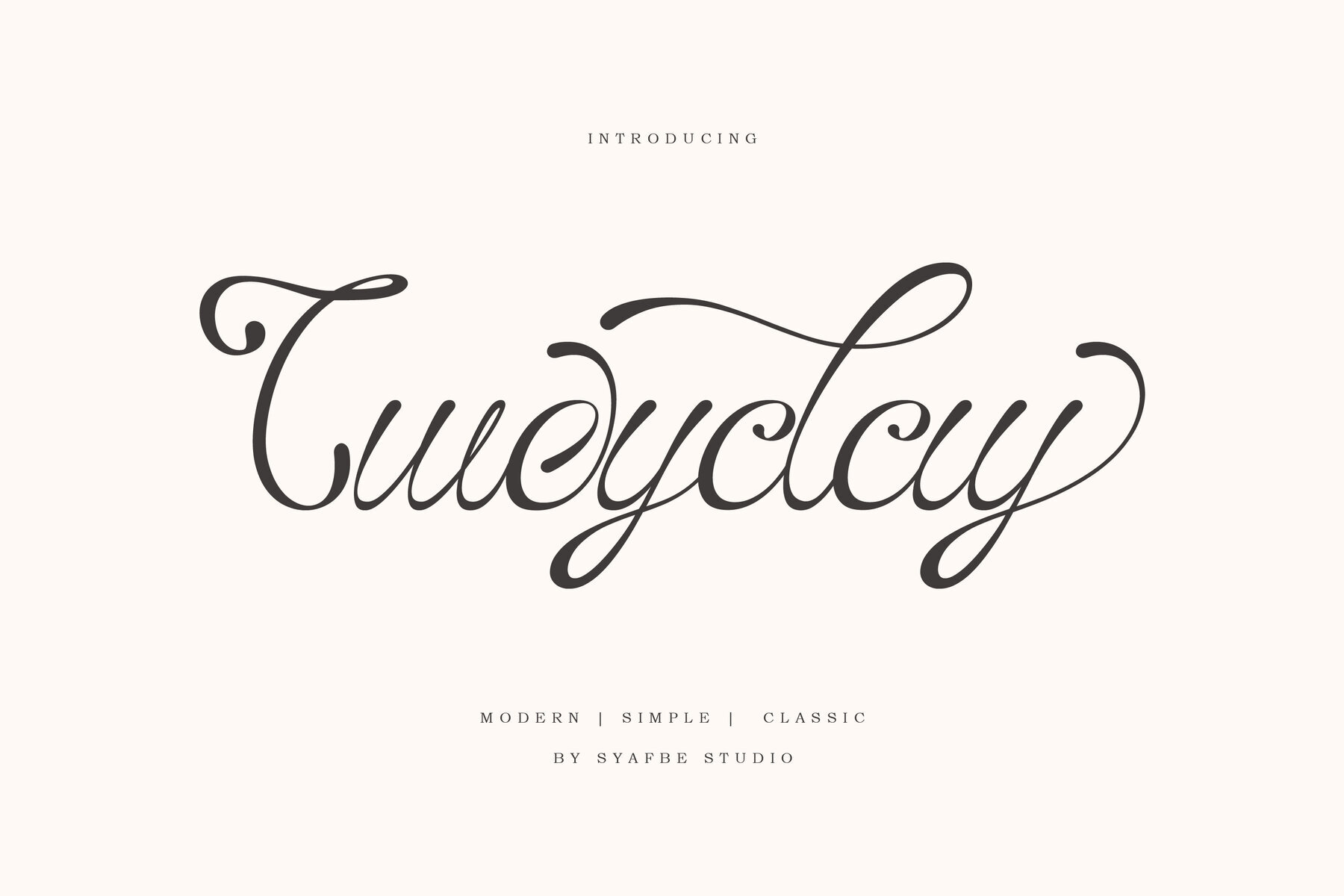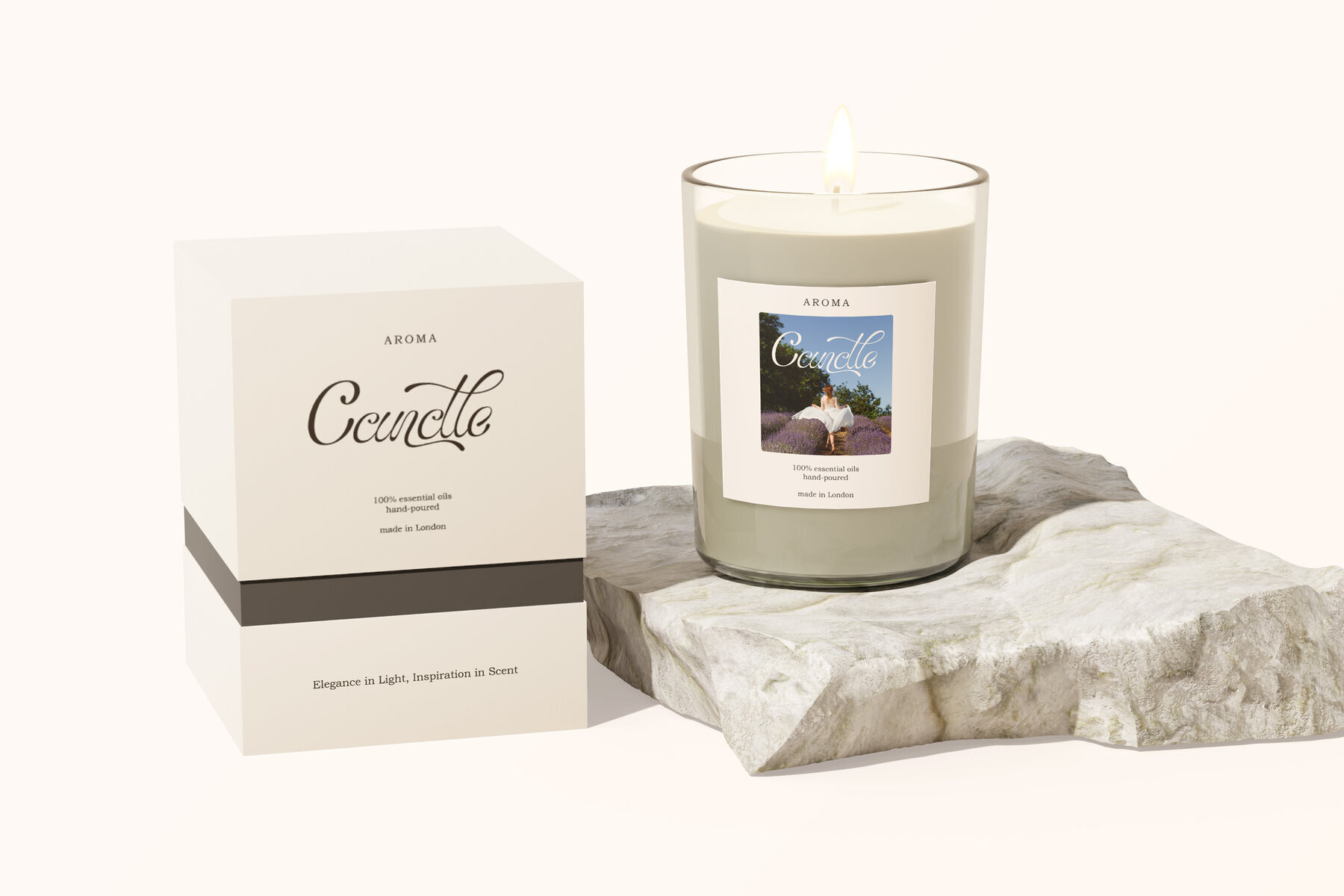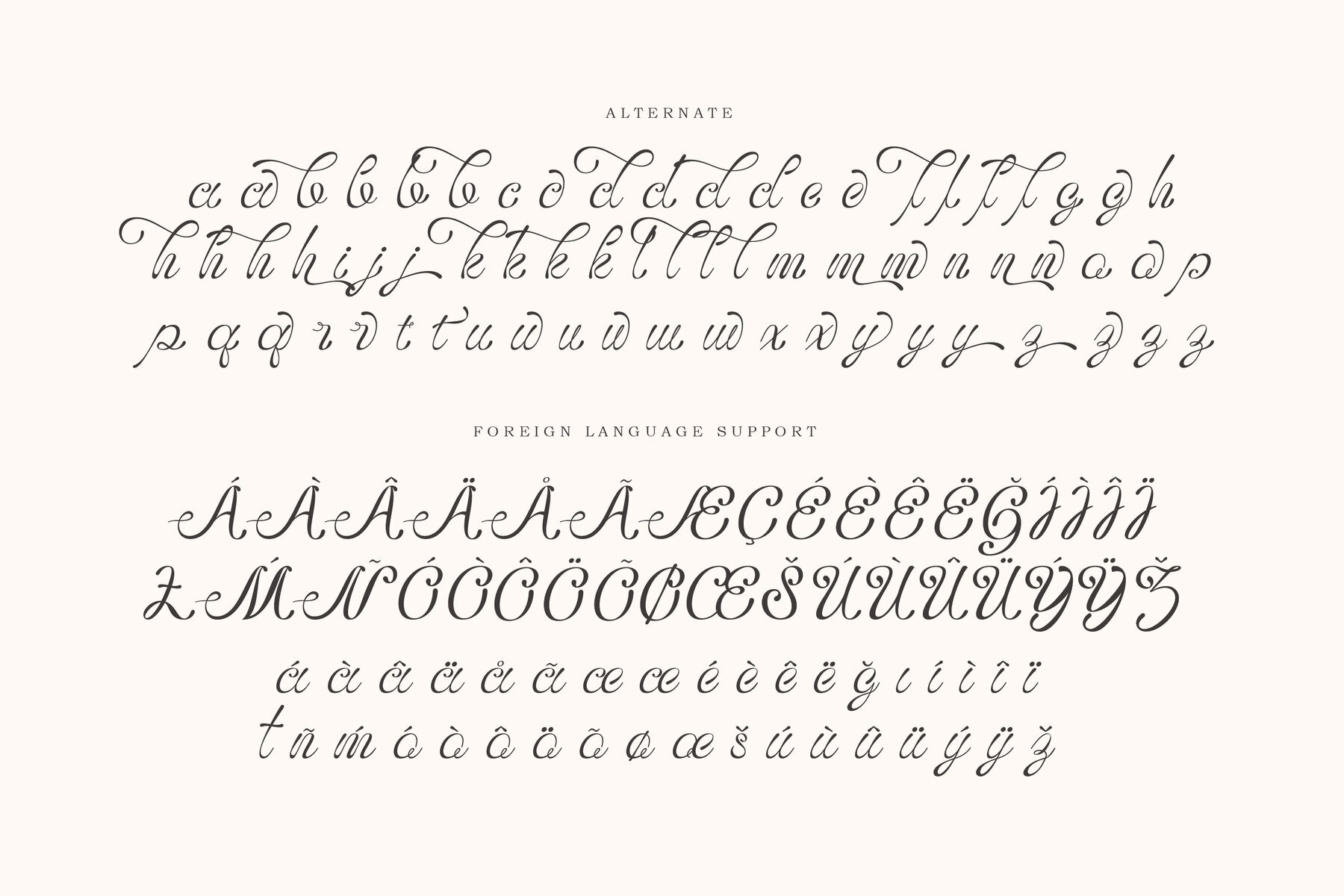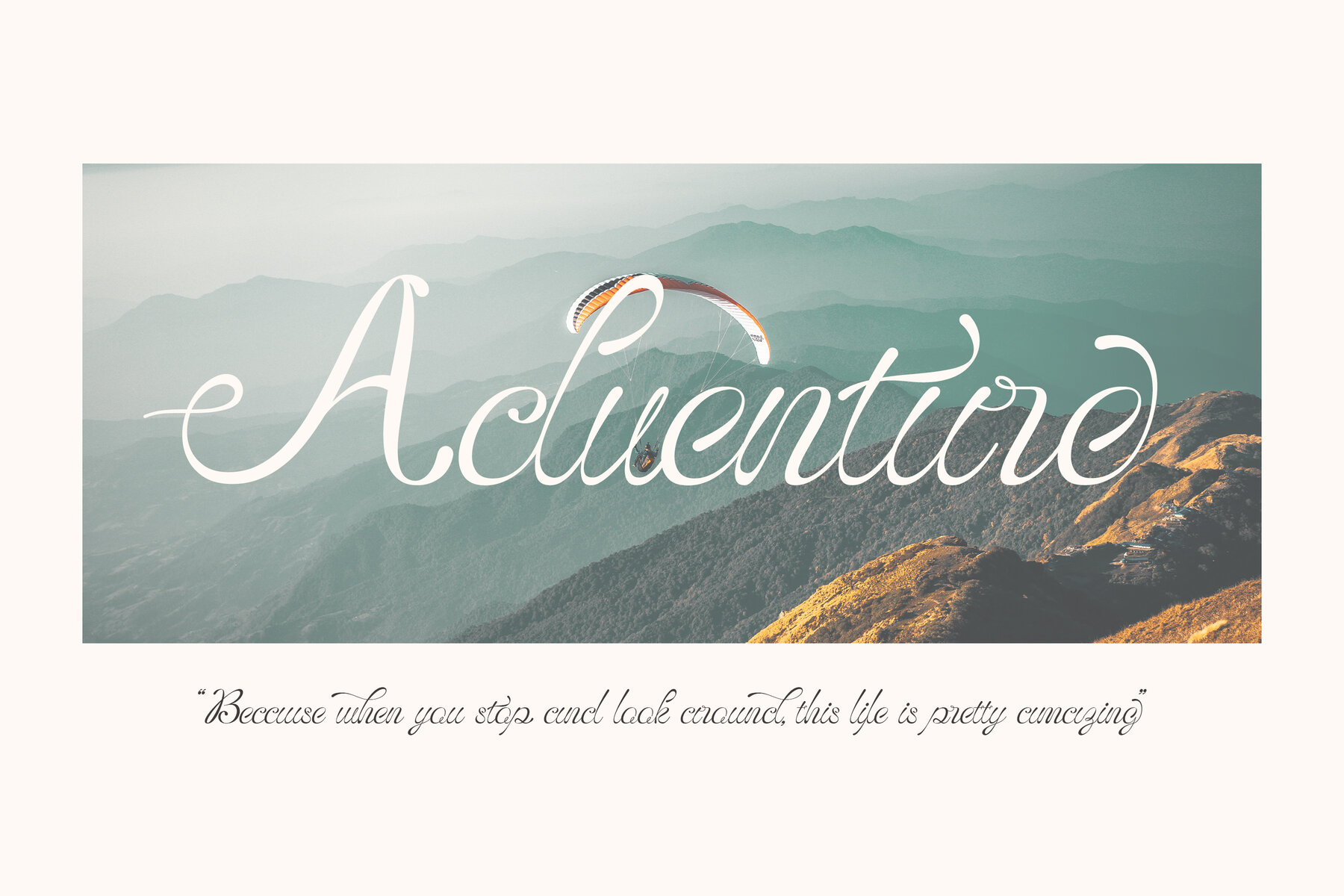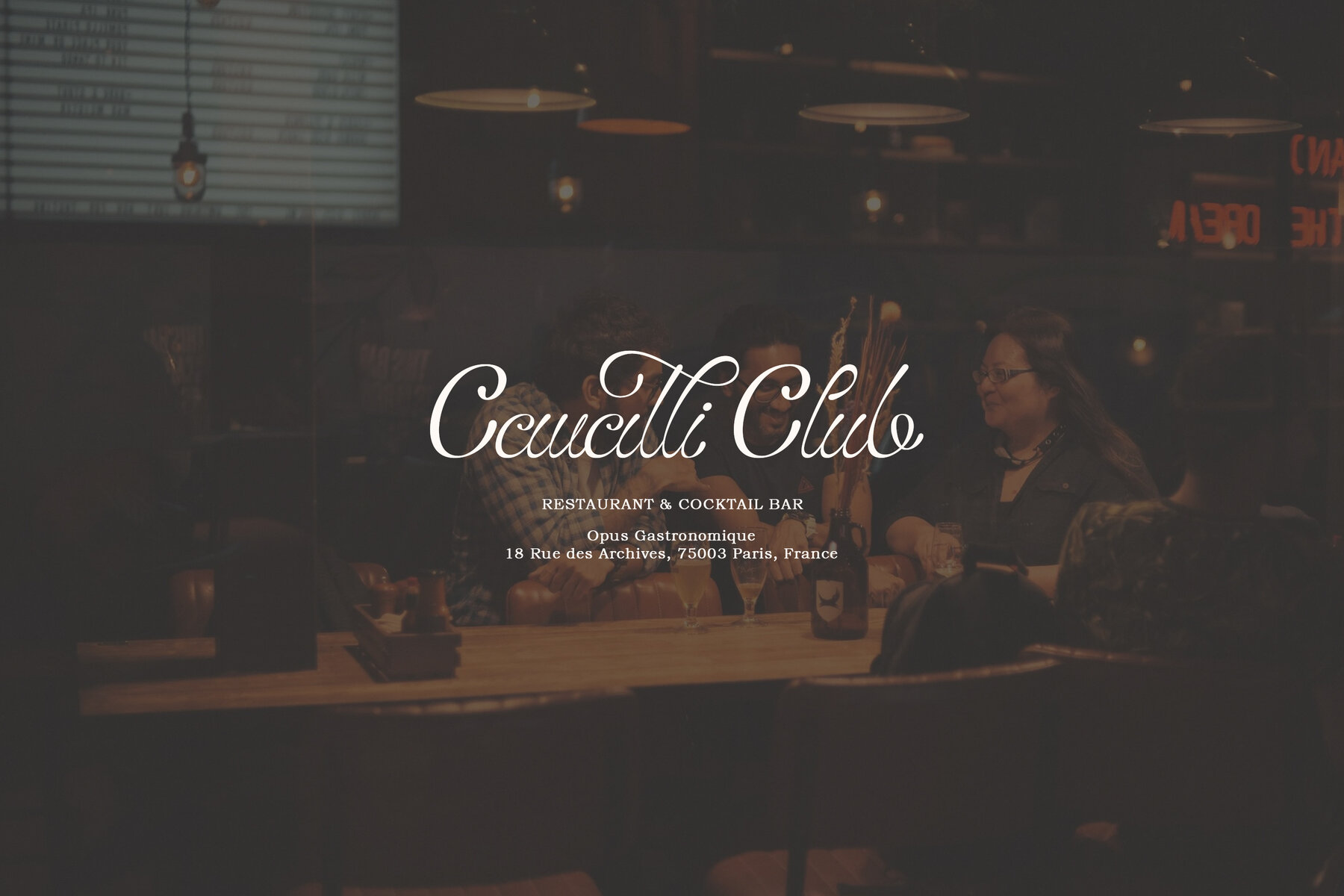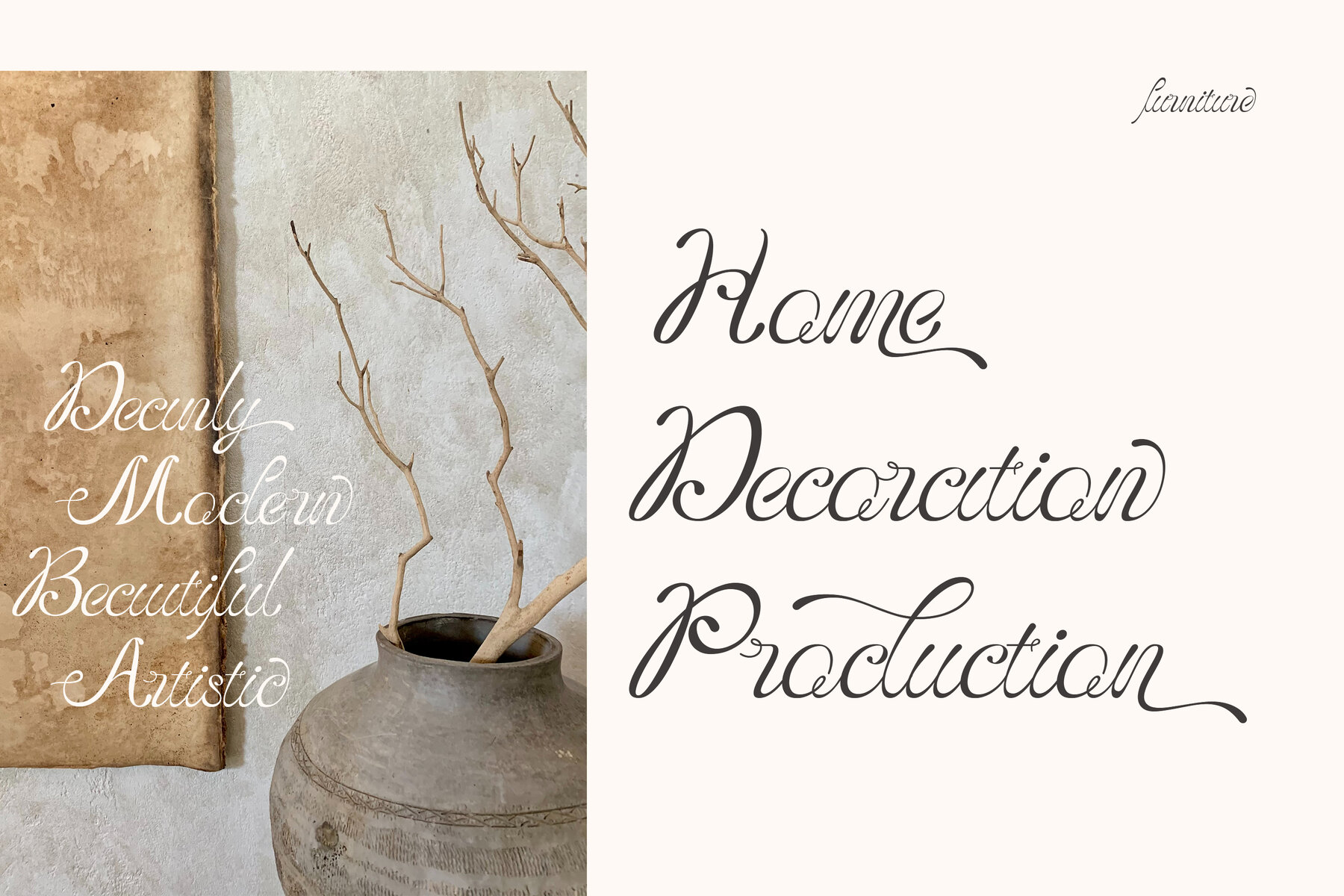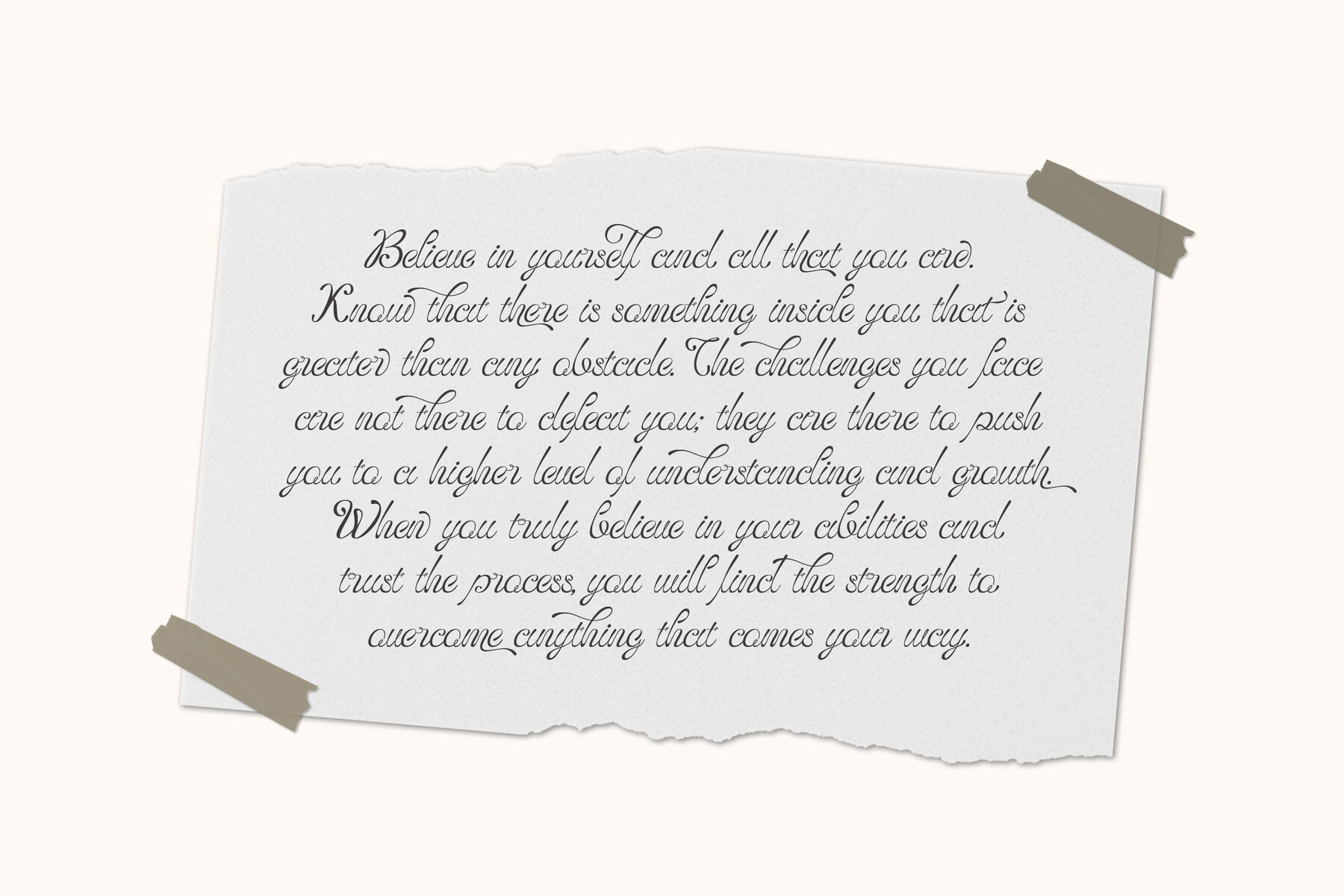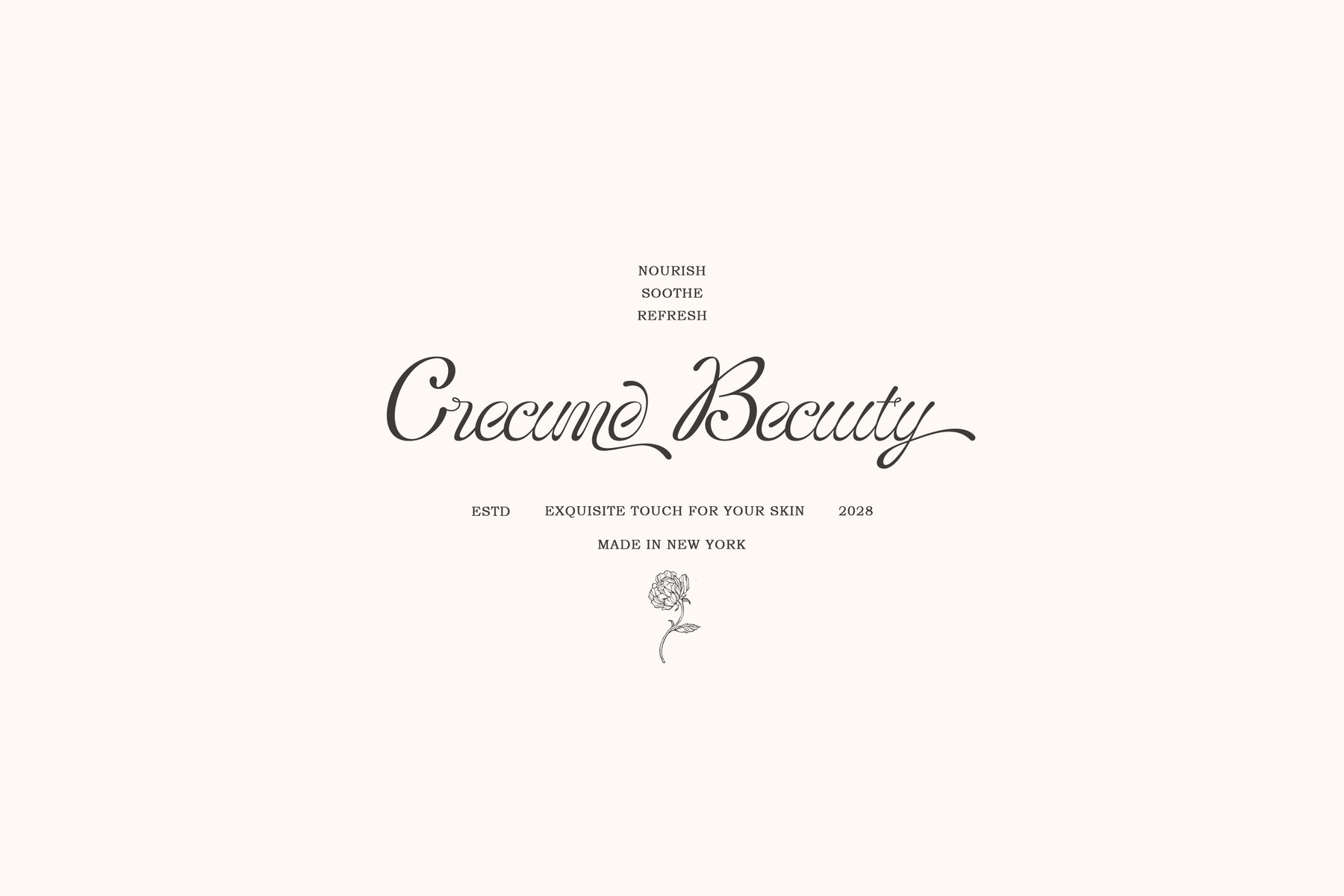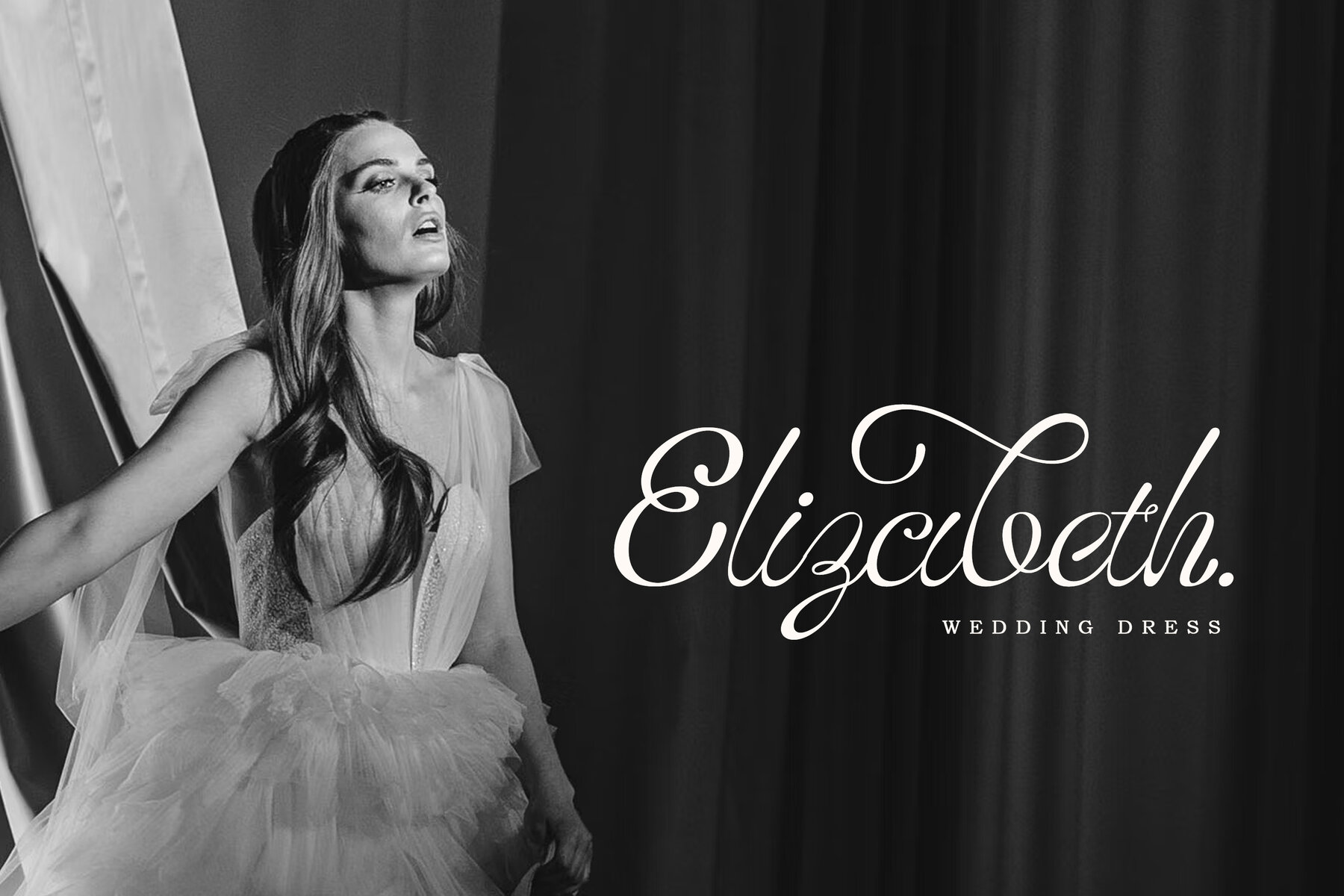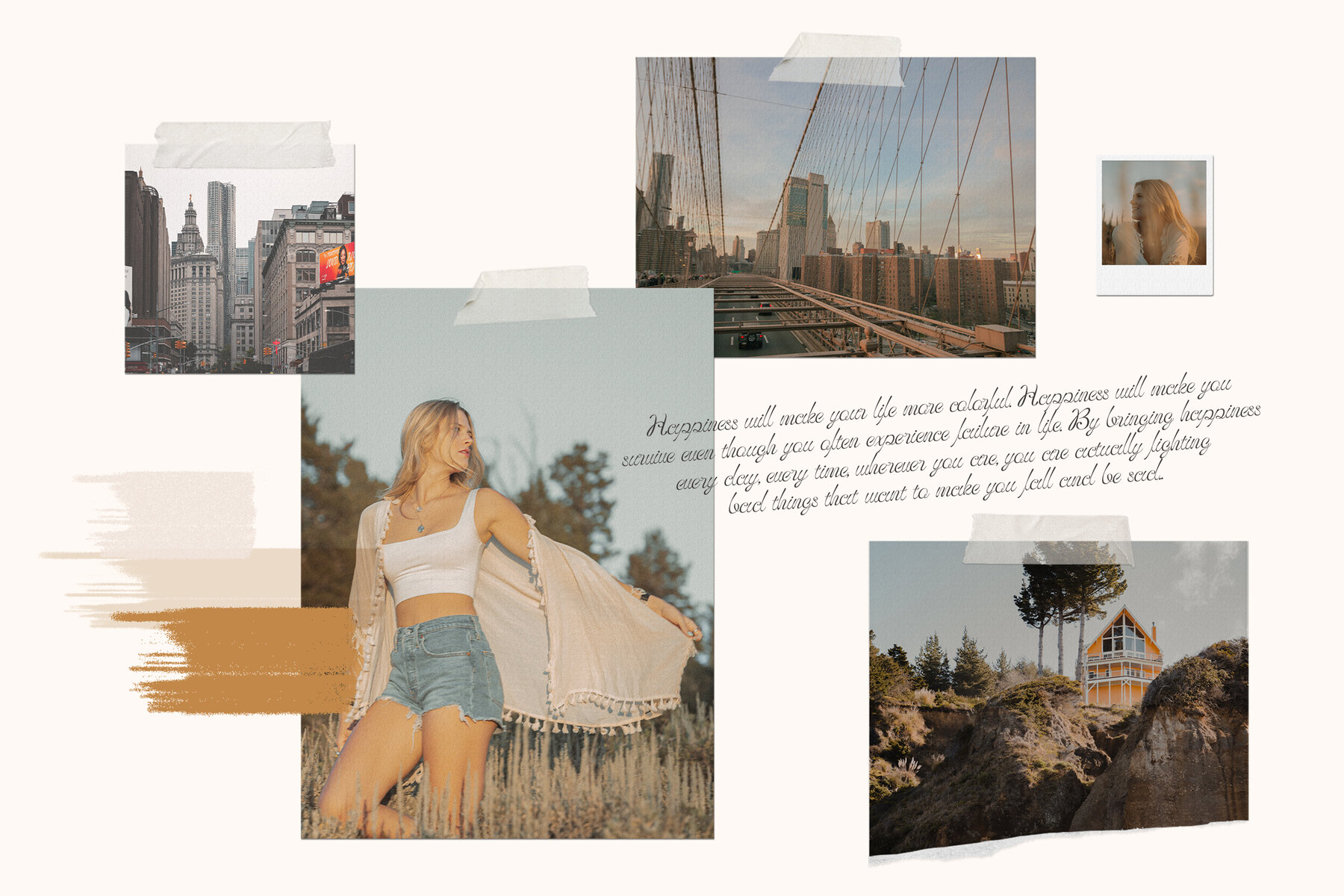
Tweyday Font
Tweyday Regular
Embrace the seamless blend of classic elegance and contemporary flair with the Tweyday font. This typeface features gracefully curved lines and smooth edges, delivering a clean and sophisticated appearance infused with modern touches. It embodies a philosophy that connects the past with the future, balancing classic design with minimalist modern aesthetics. Each carefully crafted curve conveys a sense of harmony and tranquility, offering a serene visual experience that invites reflection and appreciation of every detail. Tweyday's adaptability makes it a top choice for businesses aiming to convey an elegant yet contemporary image. Its approachable prestige complements both small businesses and large companies, enhancing every design project with a touch of luxury. Tweyday Font: Classic Elegance Meets Modern Practicality